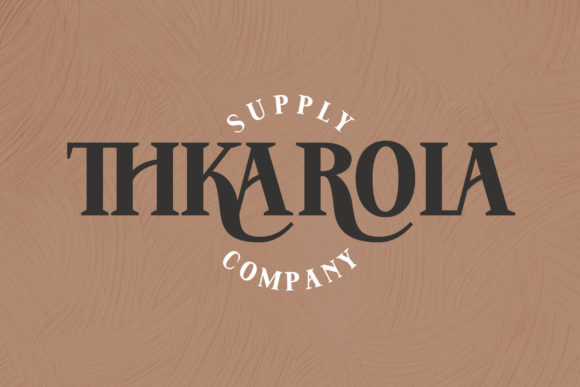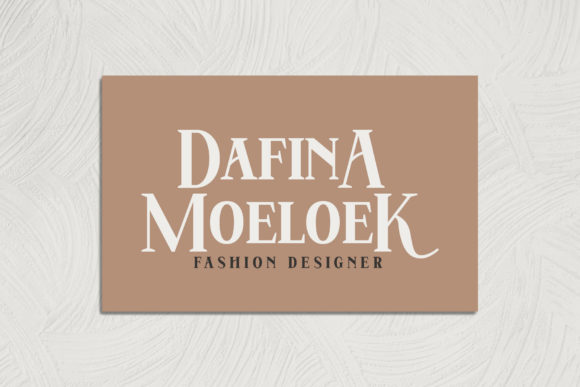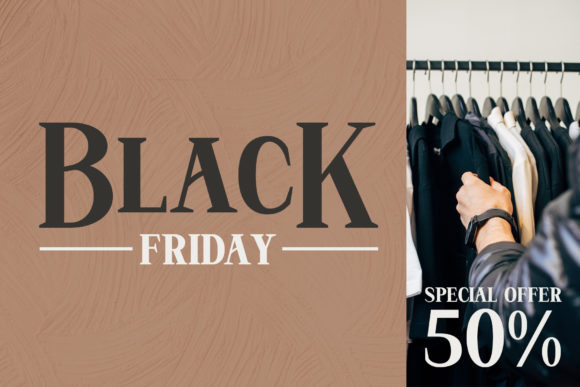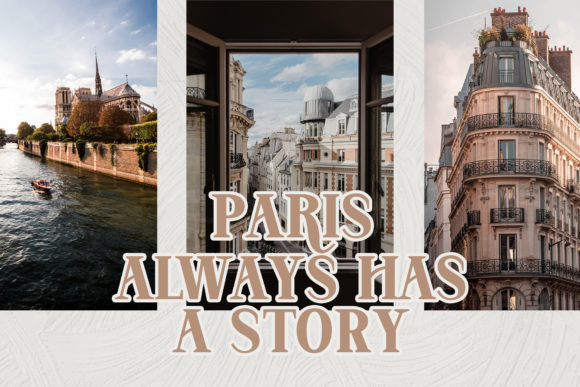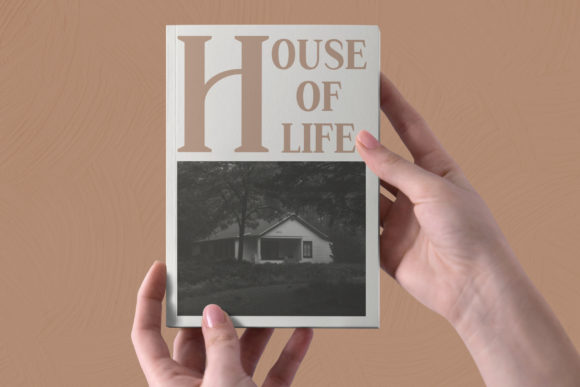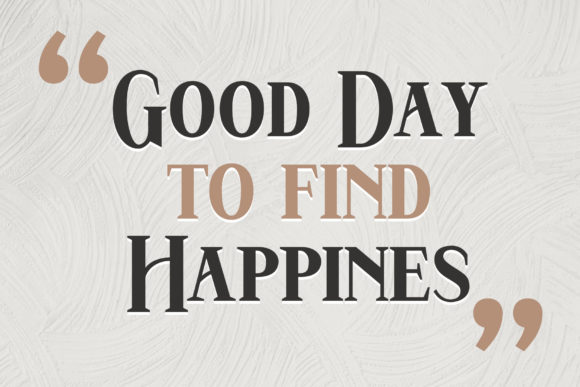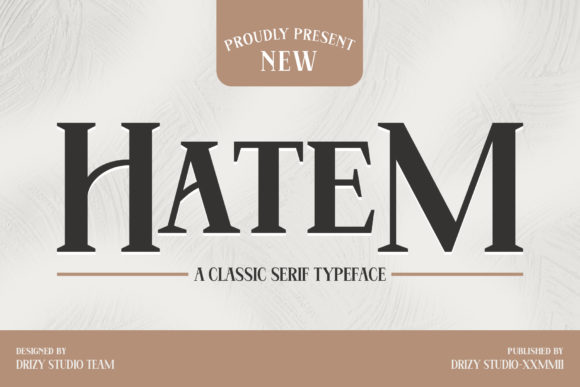
Introducing Hatem Font: Elevate Your Designs with Elegance and Sophistication
In the world of typography, a well-chosen font can make all the difference in transforming a design from ordinary to extraordinary. For designers and crafters seeking to add a touch of luxury and style to their projects, Hatem Font is an excellent choice. This elegant serif font is specifically designed to bring a romantic, personalized touch to various design applications, making it ideal for wedding invitations, cards, and other special occasions.
The Characteristics of Hatem Font
Hatem Font is a serif font that exudes elegance and sophistication. Its classic design features subtle flourishes and refined lines, making it perfect for designs that require a high level of refinement. The font’s elegant appearance is characterized by:
- Classic Serif Design: Hatem Font boasts a traditional serif design, complete with subtle serifs that add a touch of sophistication to any text.
- Refined Lines: The font’s lines are carefully crafted to create a smooth, flowing appearance that enhances readability.
- Subtle Flourishes: Hatem Font features delicate flourishes that add a touch of elegance and whimsy to the text.
Perfect for Romantic and Personalized Designs
Hatem Font is specifically designed to add a romantic, personalized touch to various design projects. Its elegant appearance makes it perfect for:
- Wedding Invitations: Create beautiful, bespoke wedding invitations that reflect the couple’s style and elegance.
- Cards and Stationery: Add a touch of sophistication to greeting cards, thank-you cards, and other stationery designs.
- Personalized Gifts: Use Hatem Font to create customized gifts, such as monogrammed towels, engraved jewelry, or personalized mugs.
Why Choose Hatem Font?
With so many fonts available, why choose Hatem Font for your design projects? Here are just a few reasons:
- Unique and Elegant Design: Hatem Font offers a distinctive, elegant design that sets it apart from other fonts.
- High Readability: The font’s refined lines and classic design ensure excellent readability, even at small sizes.
- Versatility: Hatem Font can be used for a wide range of design applications, from wedding invitations to personalized gifts.
Tips for Using Hatem Font
To get the most out of Hatem Font, follow these tips:
- Pair with Complementary Fonts: Combine Hatem Font with complementary fonts to create visual interest and add depth to your designs.
- Experiment with Colors: Try pairing Hatem Font with different colors to create a unique and eye-catching design.
- Pay Attention to Kerning: Adjust the kerning to ensure that the text appears balanced and visually appealing.
In conclusion, Hatem Font is an elegant serif font that can elevate your design projects to new heights. Its classic design, refined lines, and subtle flourishes make it perfect for romantic, personalized designs. Whether you’re creating wedding invitations, cards, or personalized gifts, Hatem Font is an excellent choice. With its high readability, versatility, and unique design, Hatem Font is sure to become a staple in your font collection.